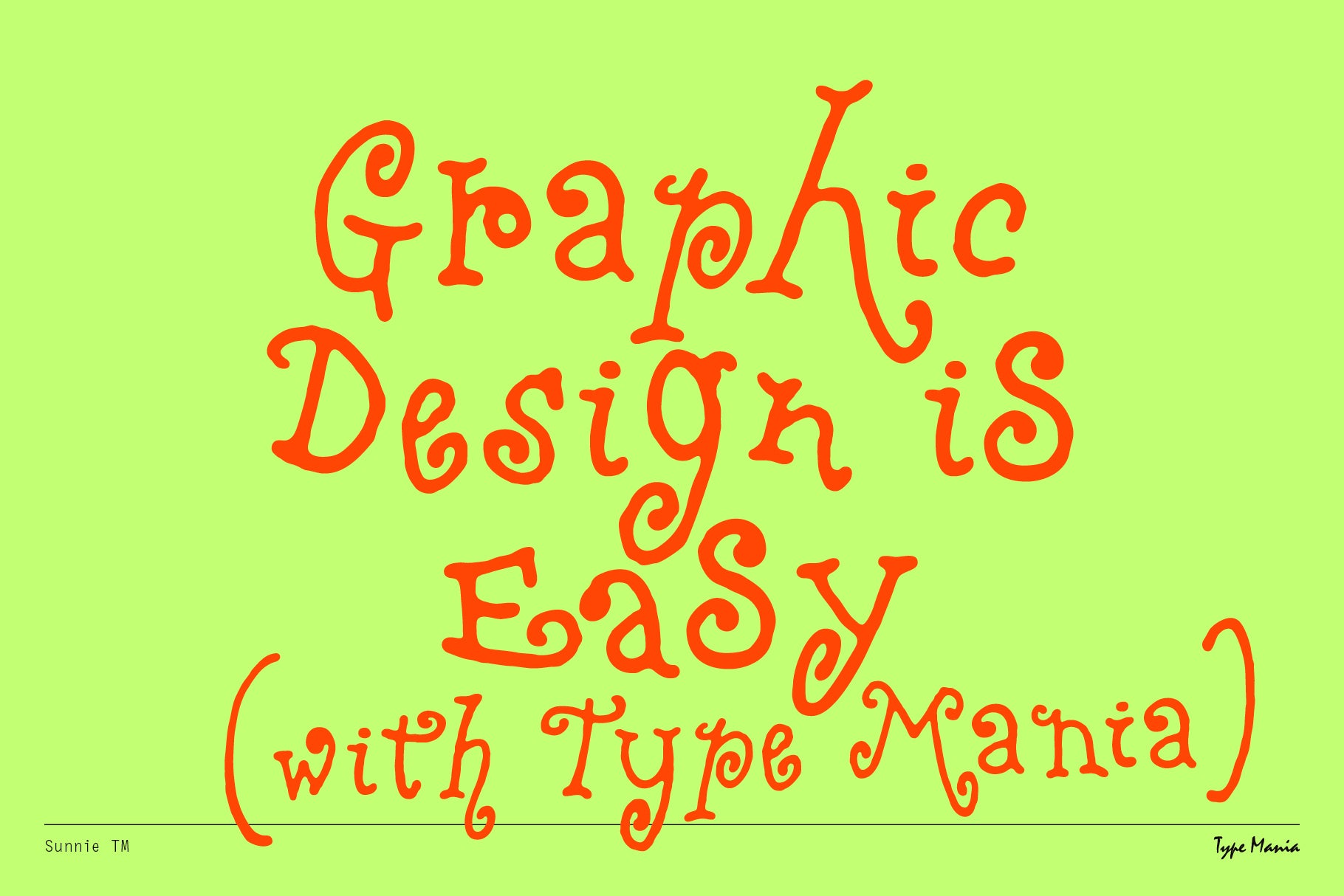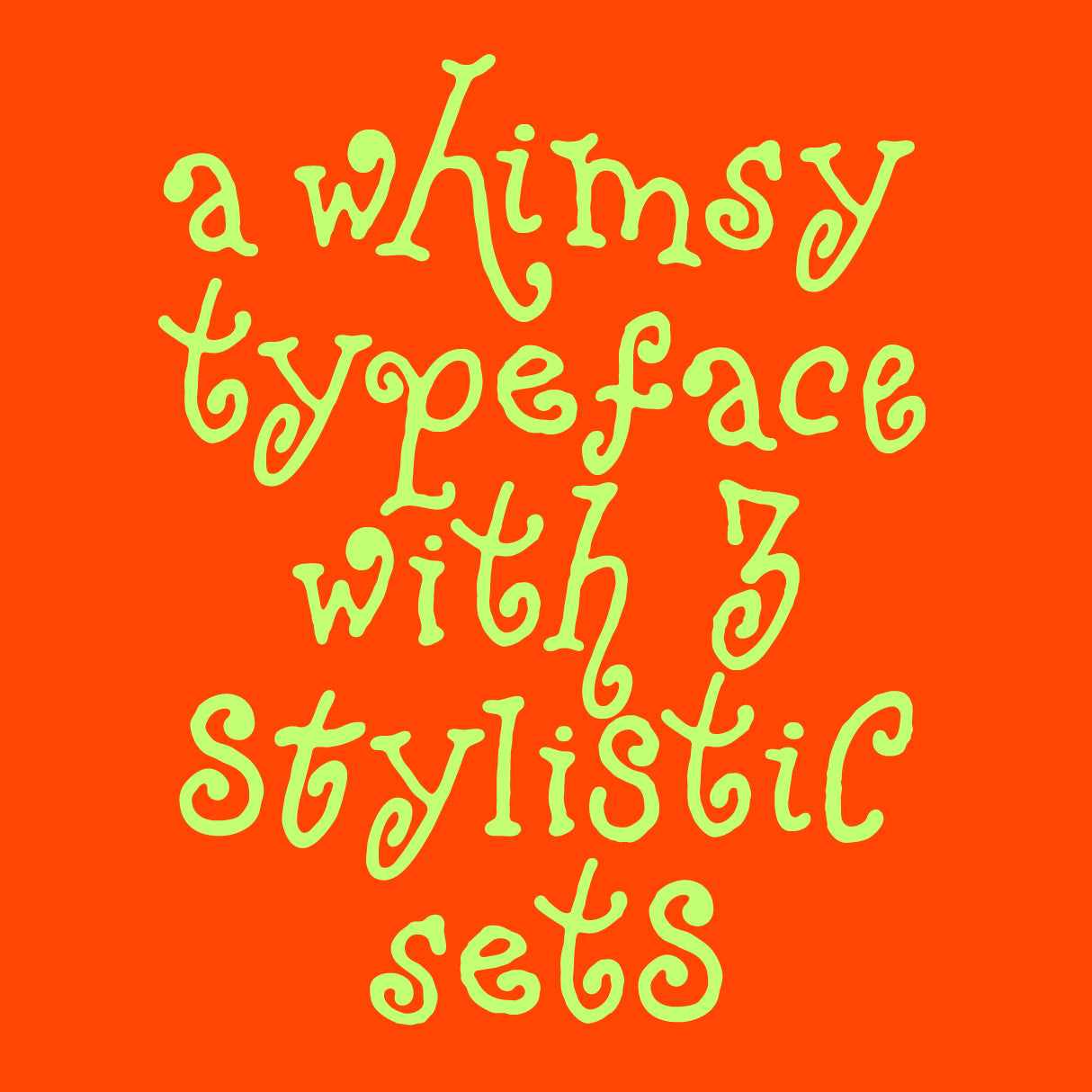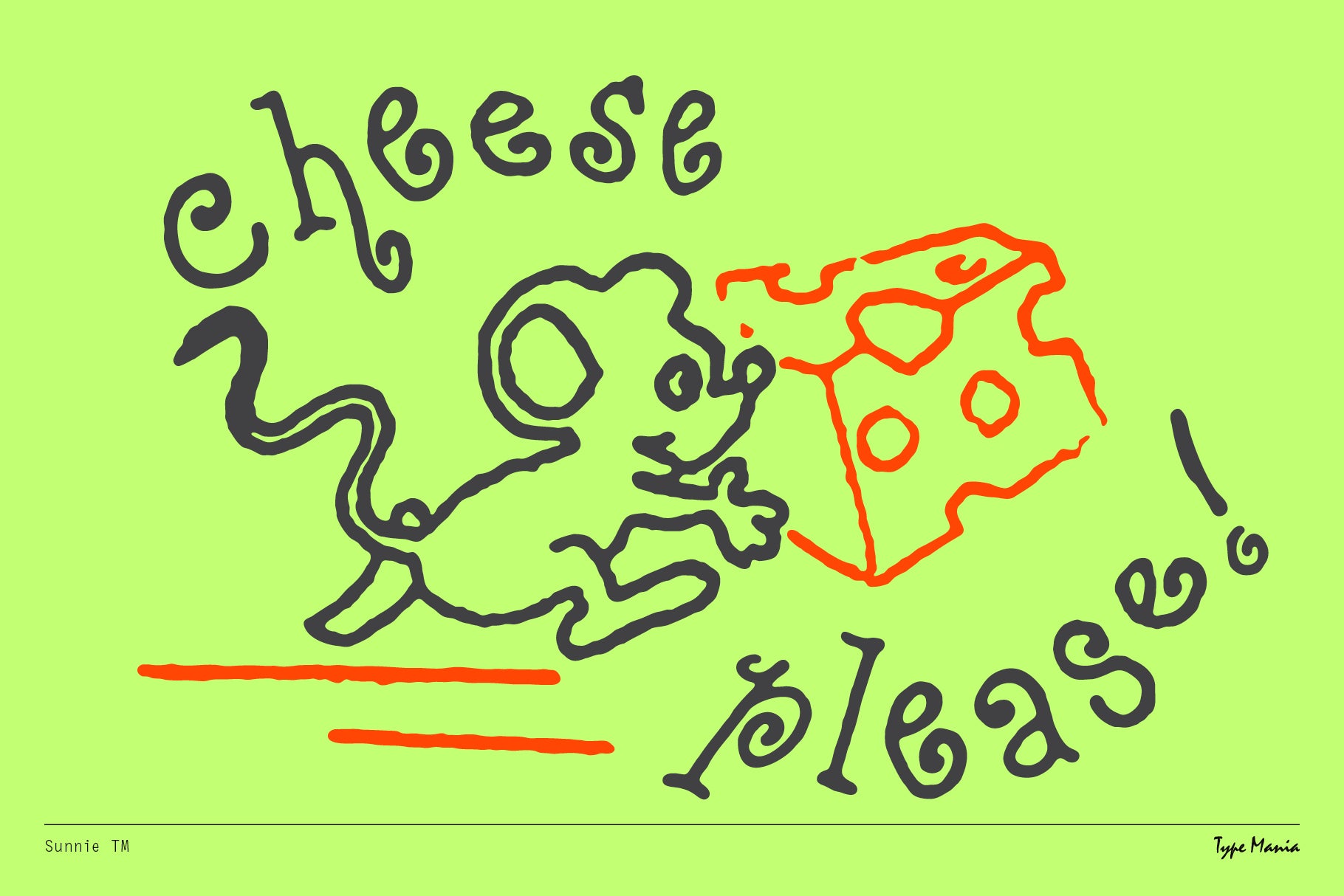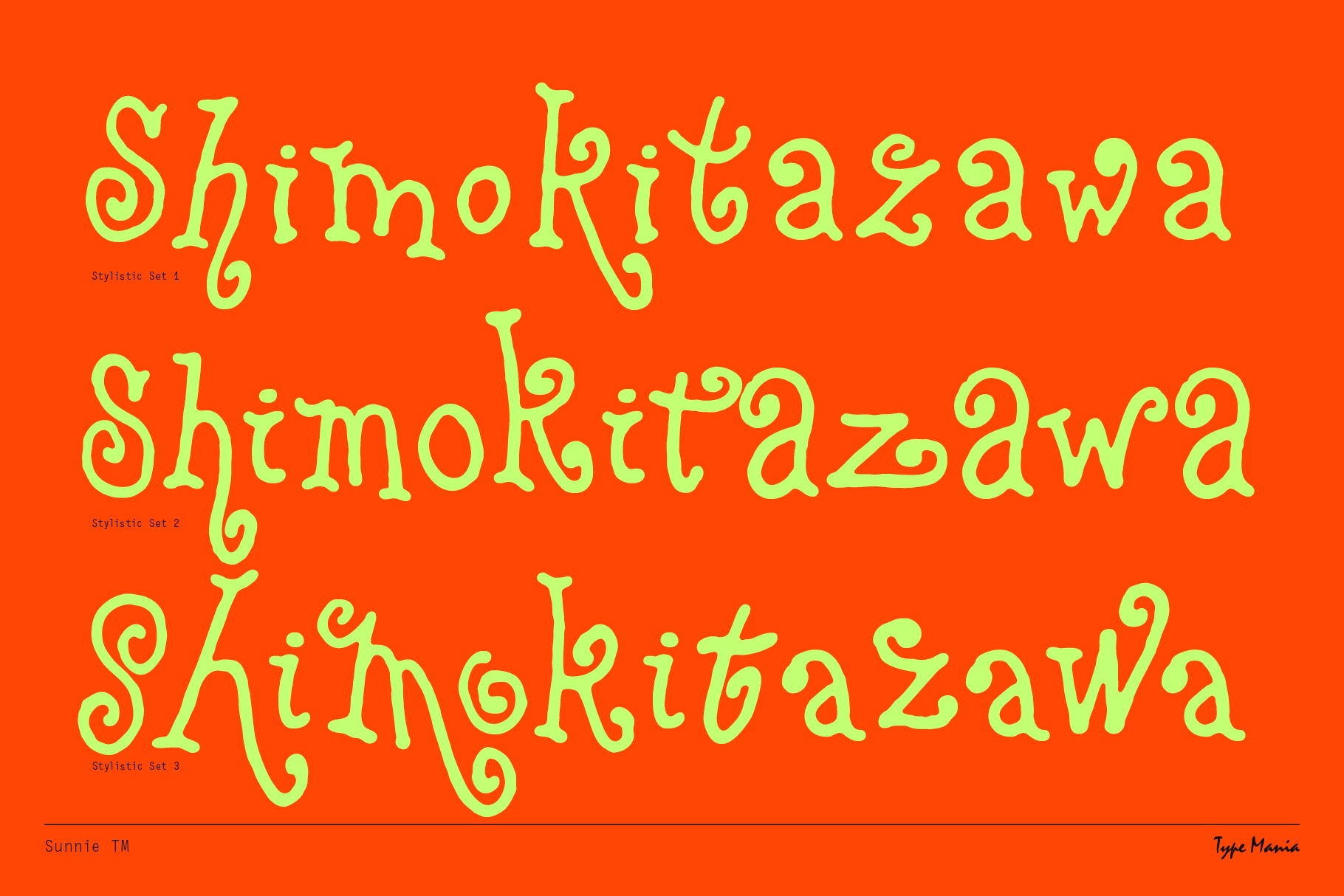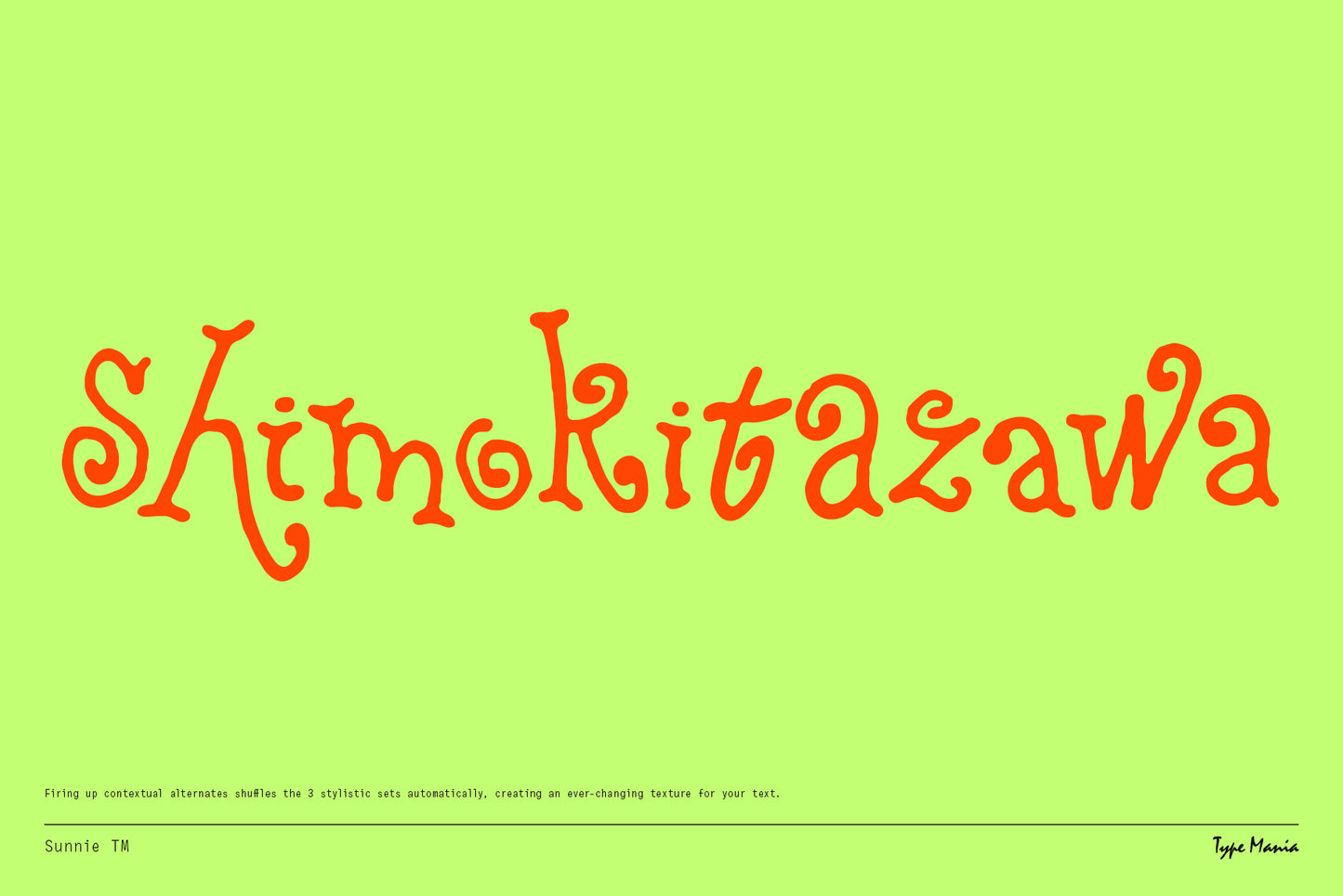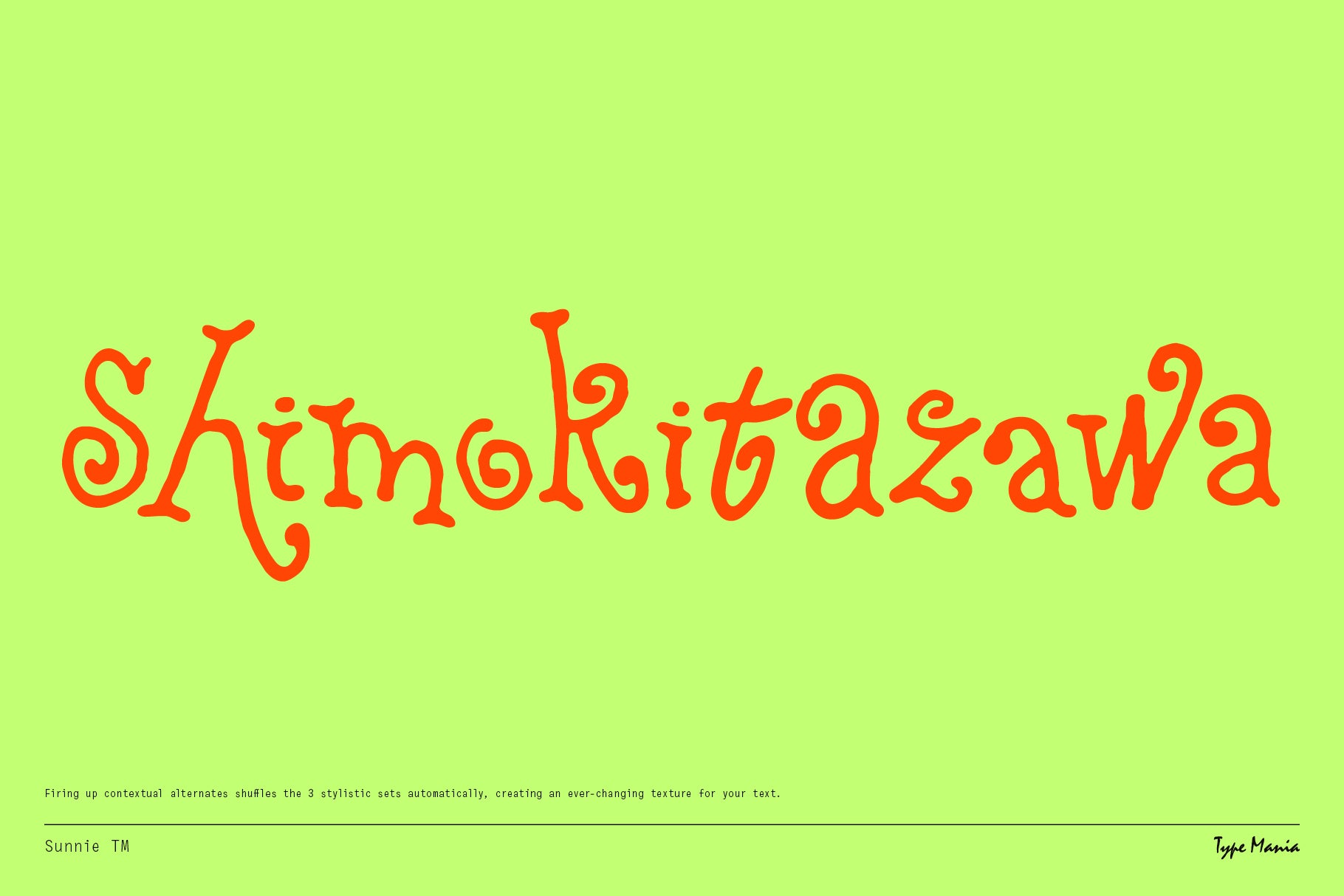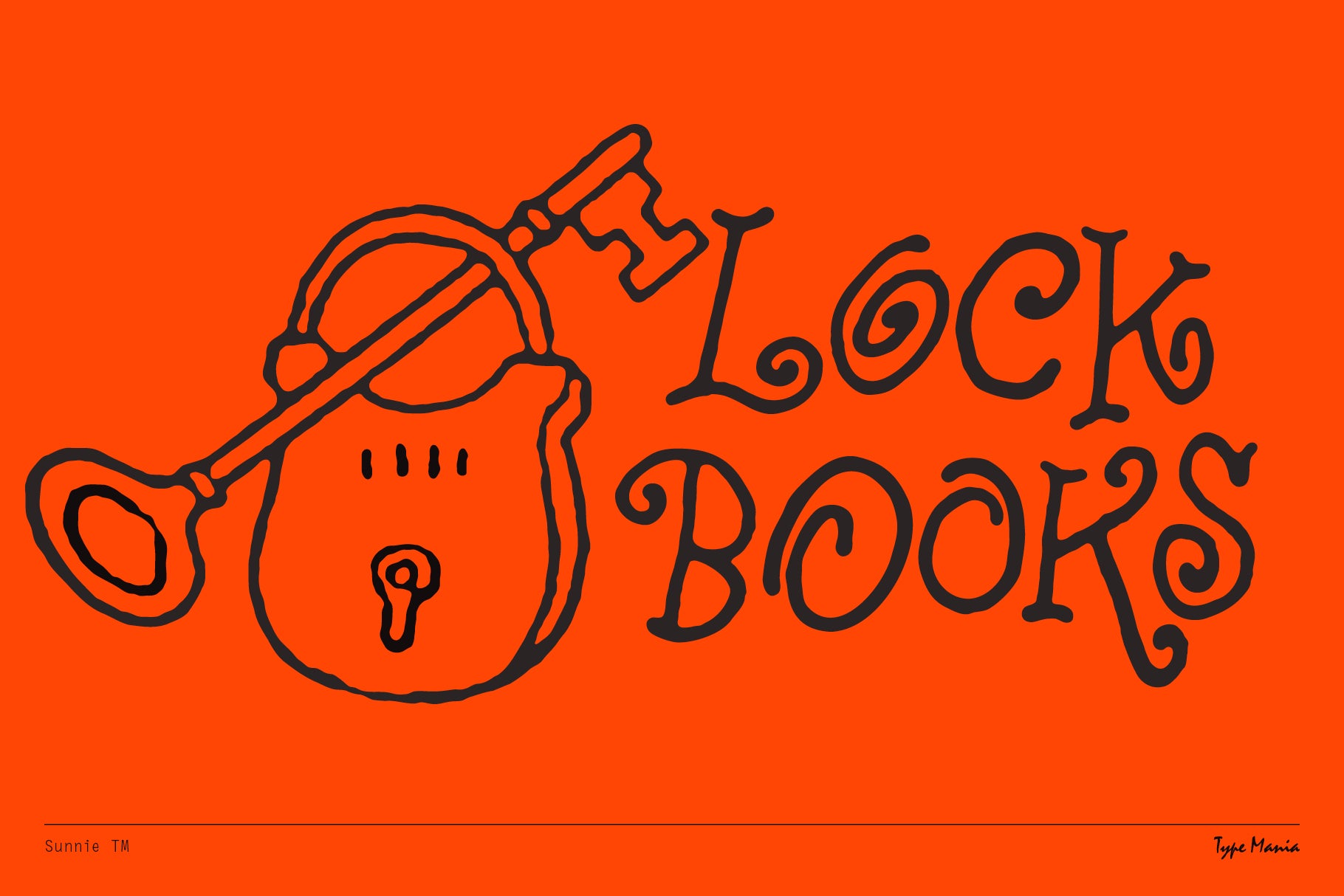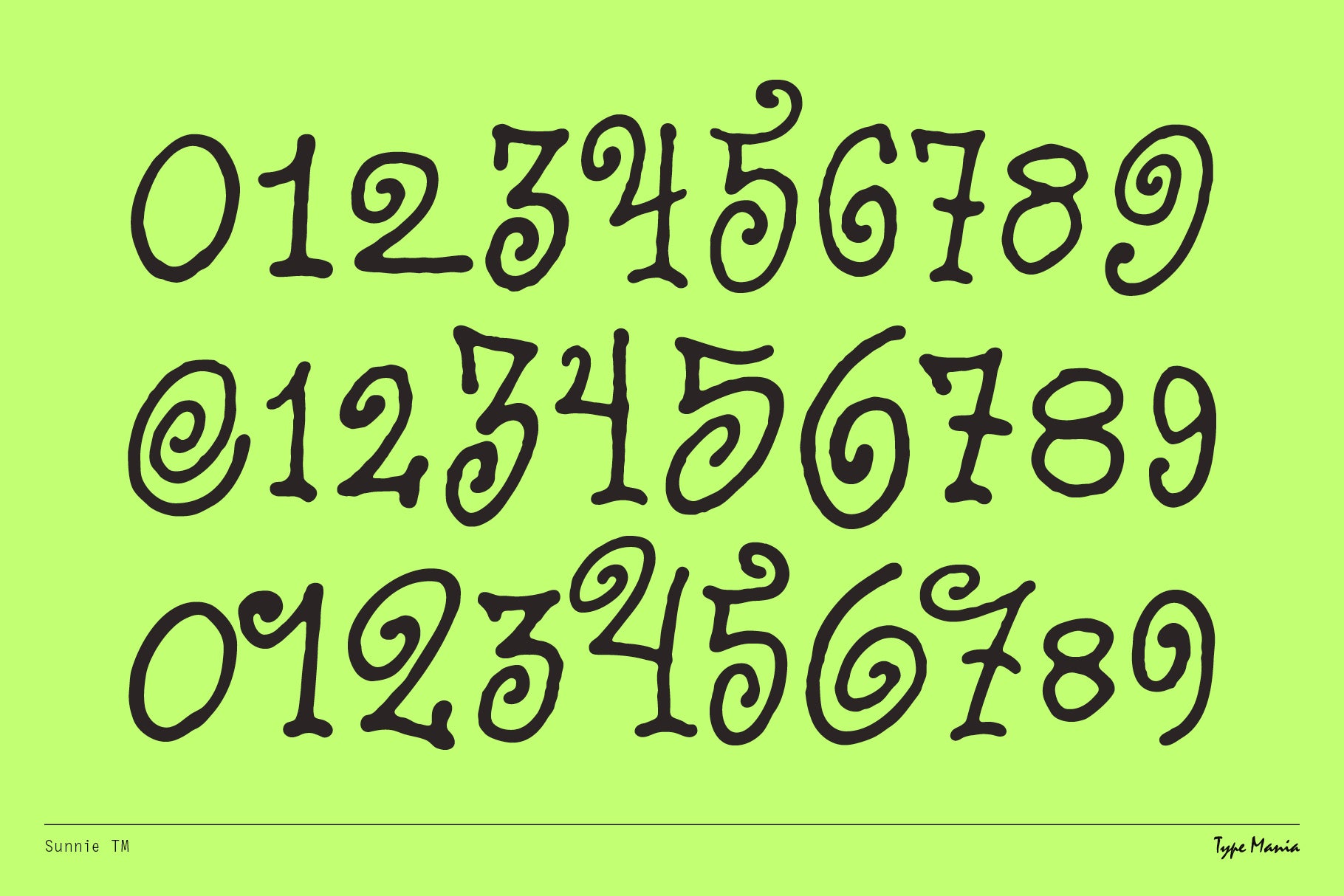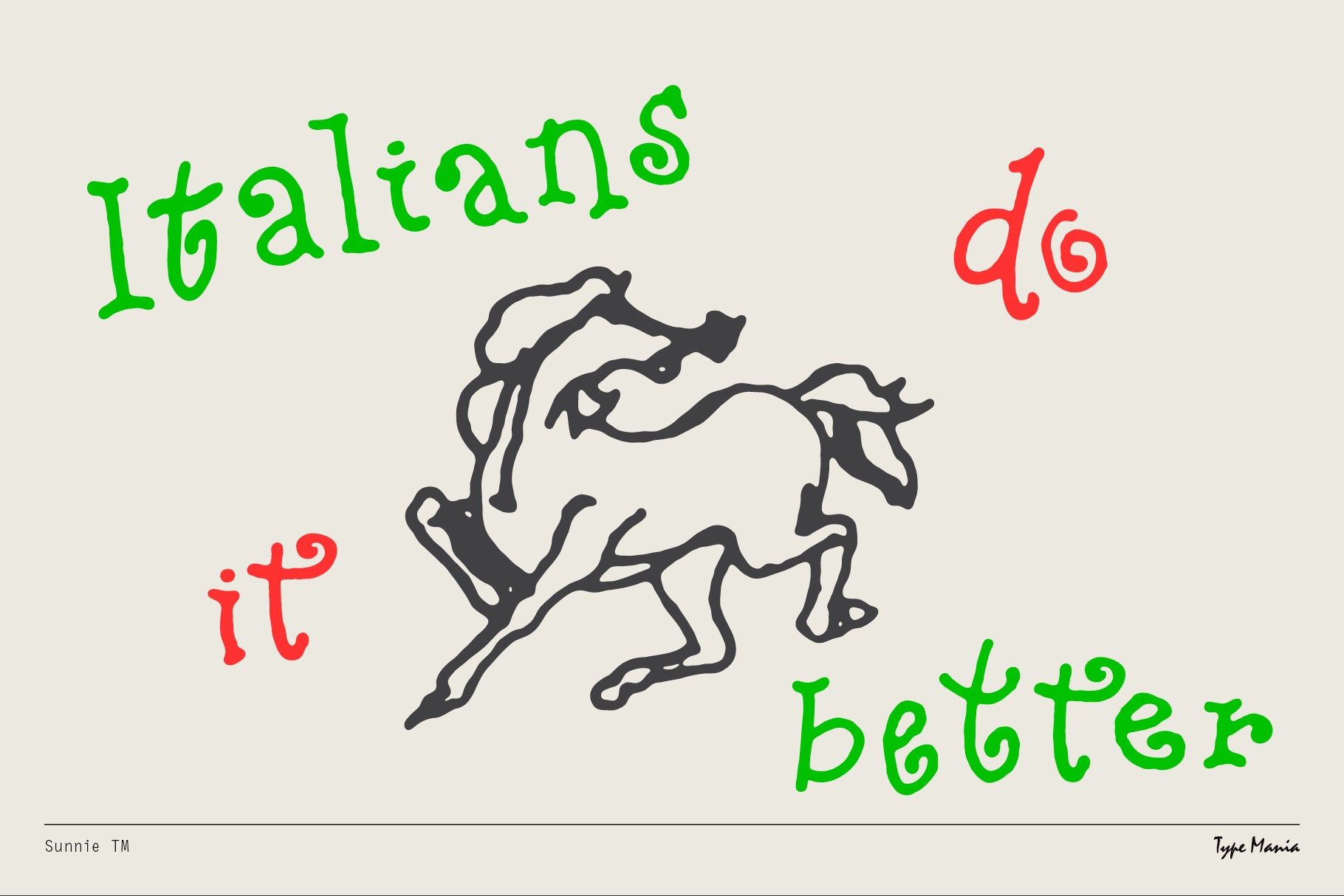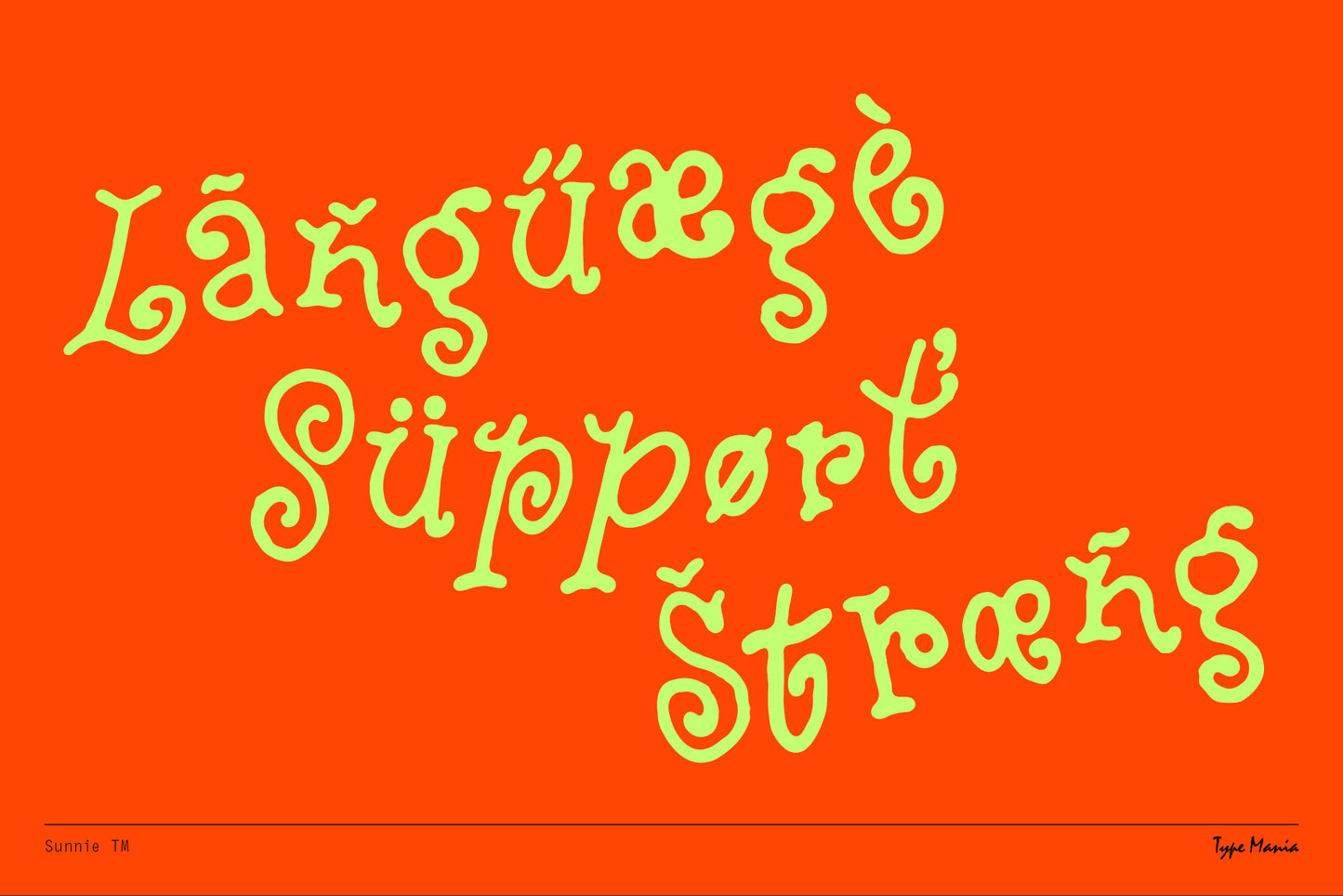
Sunnie TM
Sunnie TM is a loose scribble that rotates three stylistic sets automatically with the contextual alternates fired up. Gives you a more natural rhythm straight out of the box. Excellent.
- 3 stylistic sets
- The font is programmed to automatically shift between the stylistic sets